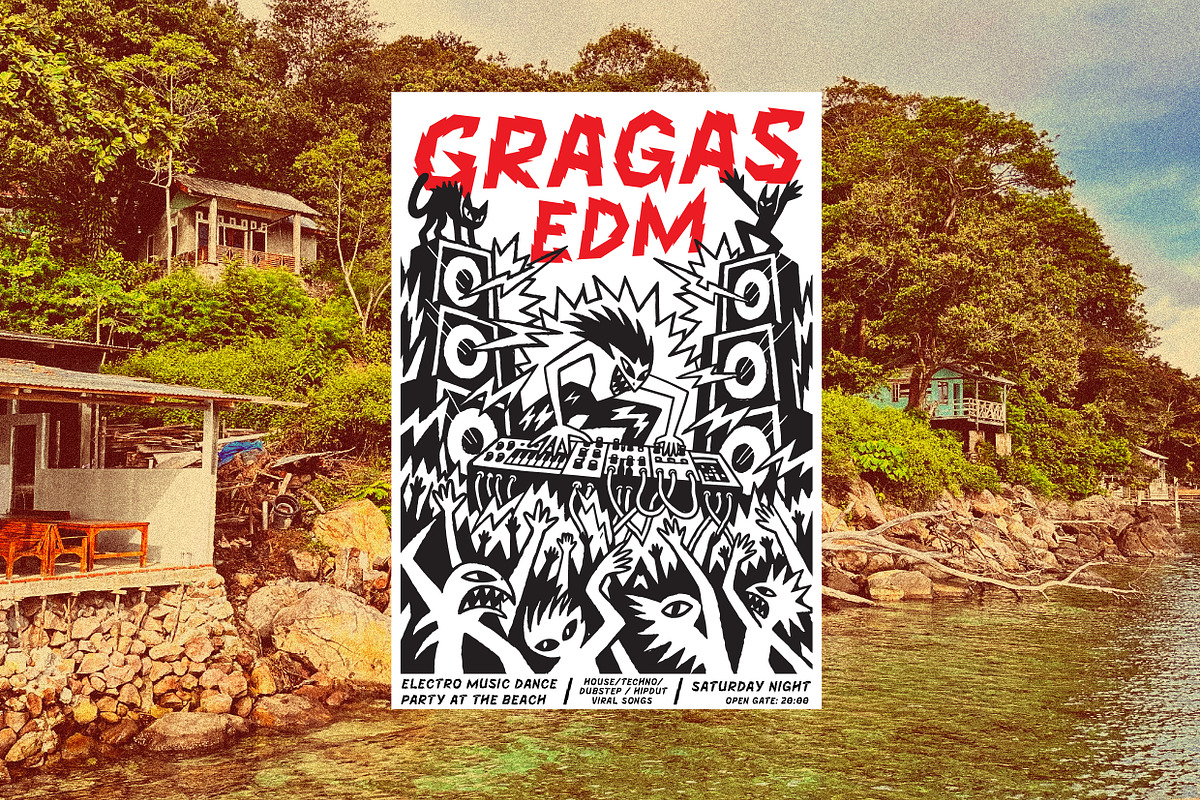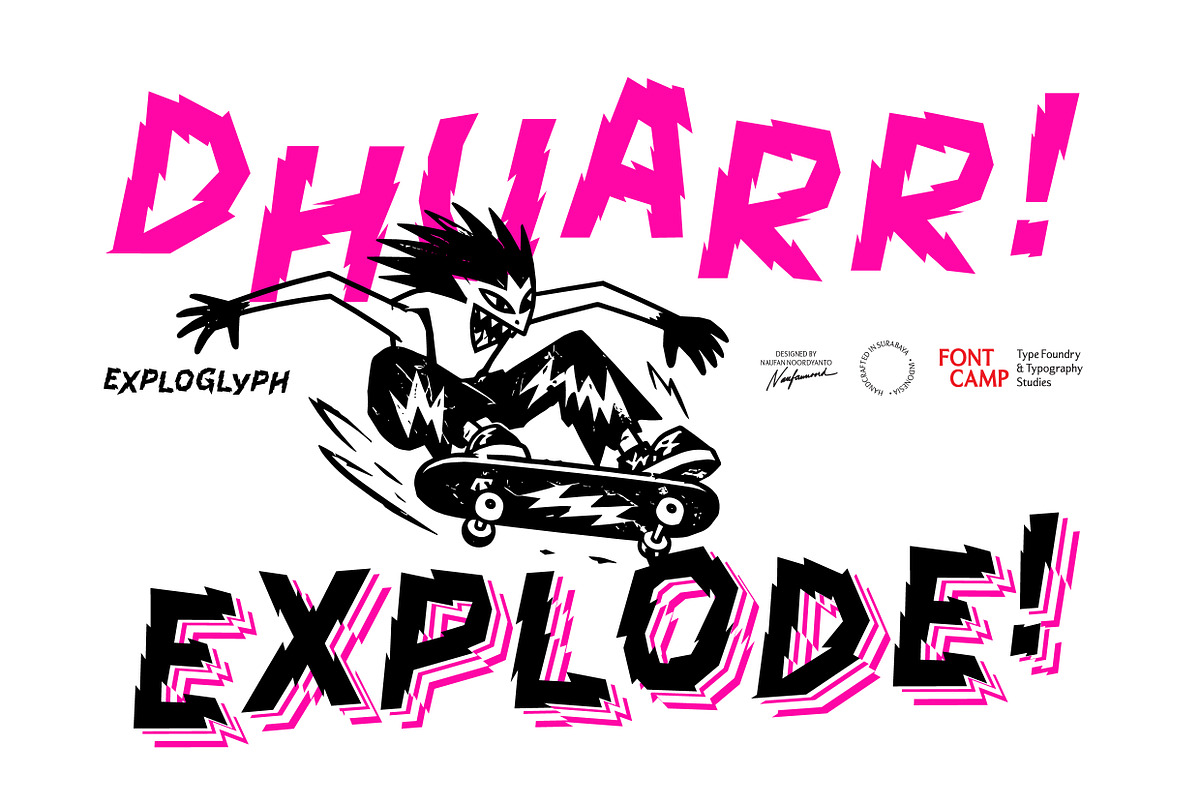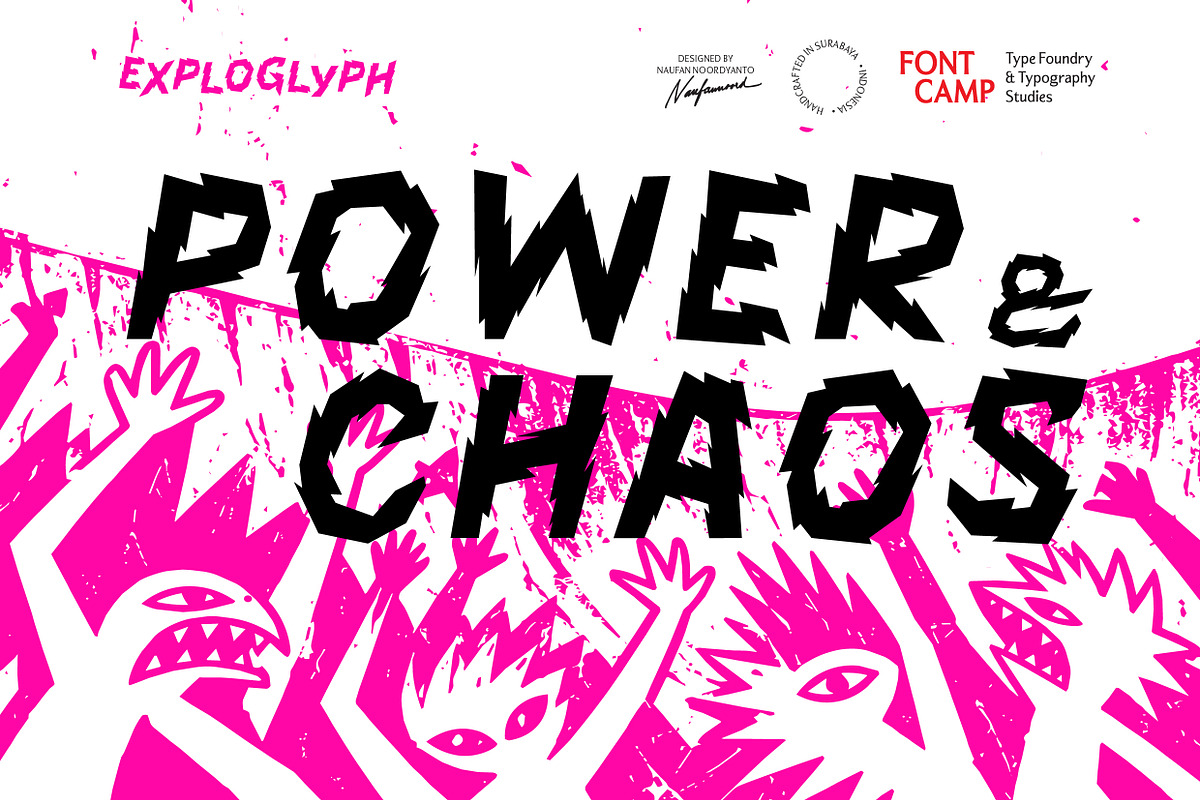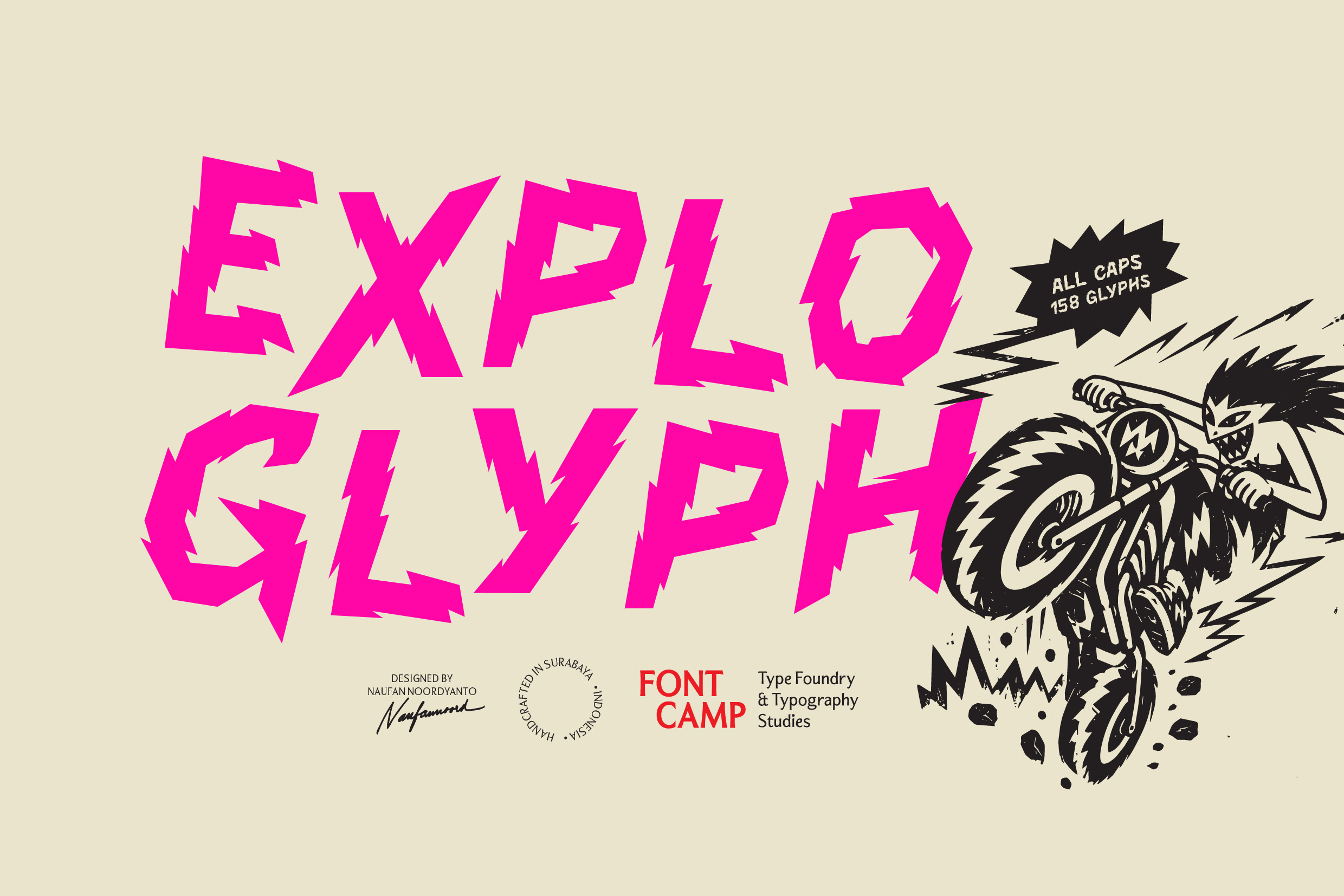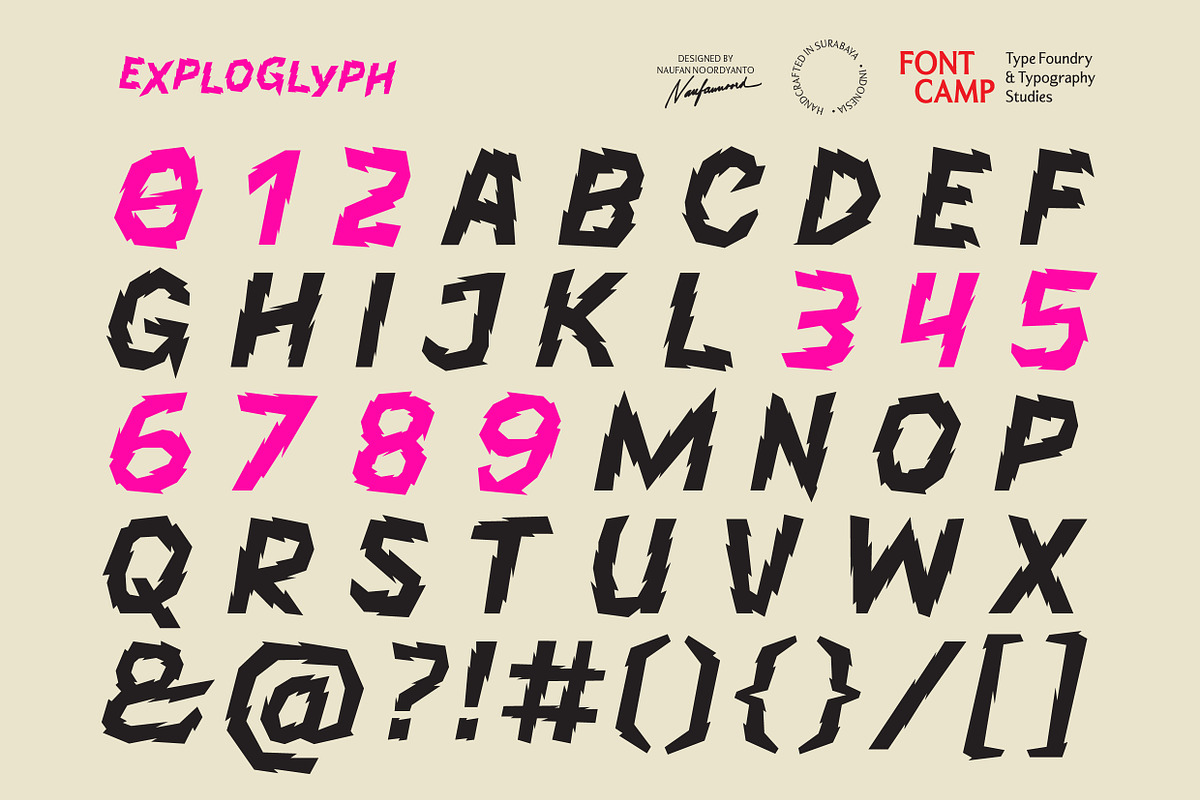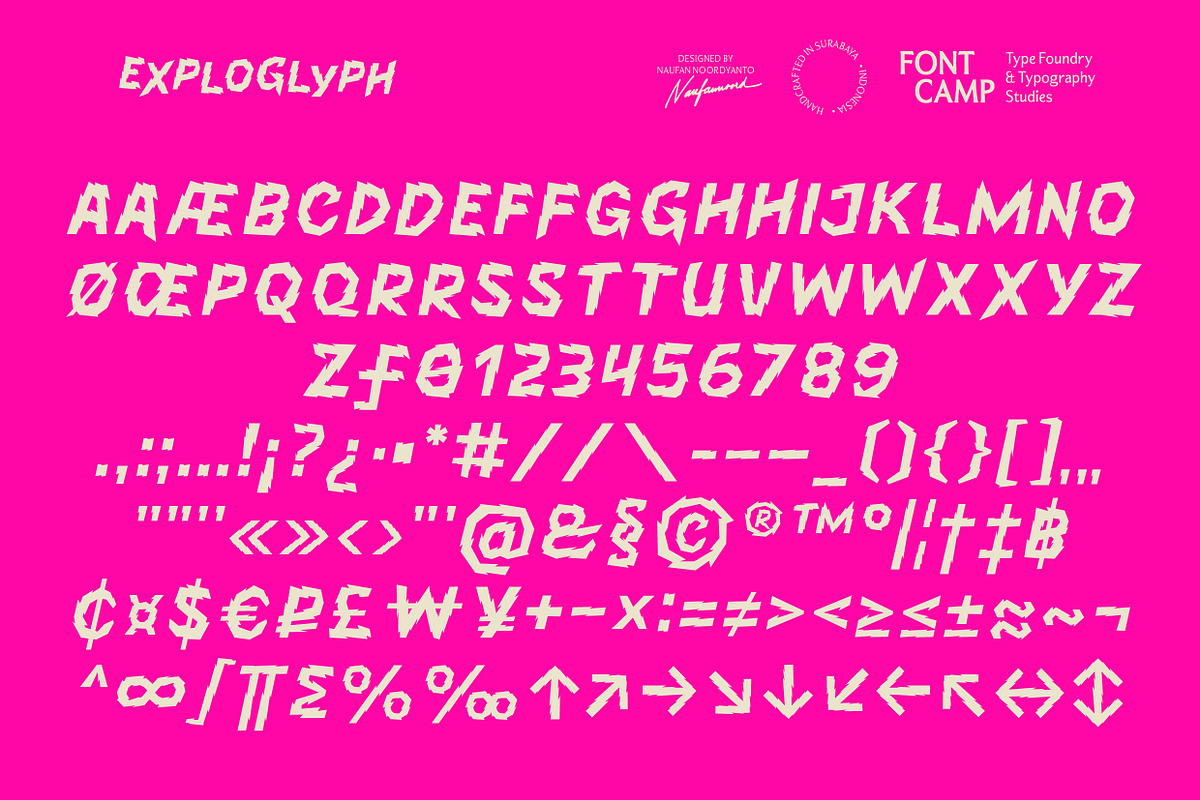
Exploglyph Font
Introducing an "EXPLOGLYPH" Font.
DESCRIPTION: Exploglyph is an energetic and dramatic experimental display typeface defined by its fragmented, explosive style and structural sharpness. Its most prominent feature is the dynamic integration of sharp, broken lines and extreme angles into each character, giving the text a powerful, adventurous, and destructive feeling that mimics a controlled explosion or shattering rather than conventional design tropes. The letterforms combine aggressive cuts with precise vector execution, allowing for creative, high-impact text layouts that maintain a distinct, bold, and museum-worthy aesthetic.
TECHNICAL SPECIFICATIONS & CAPABILITIES: Engineered with 158 meticulously crafted all-cap glyphs, including alphabet, figures, and basic punctuation, built for maximum visual impact in display contexts.